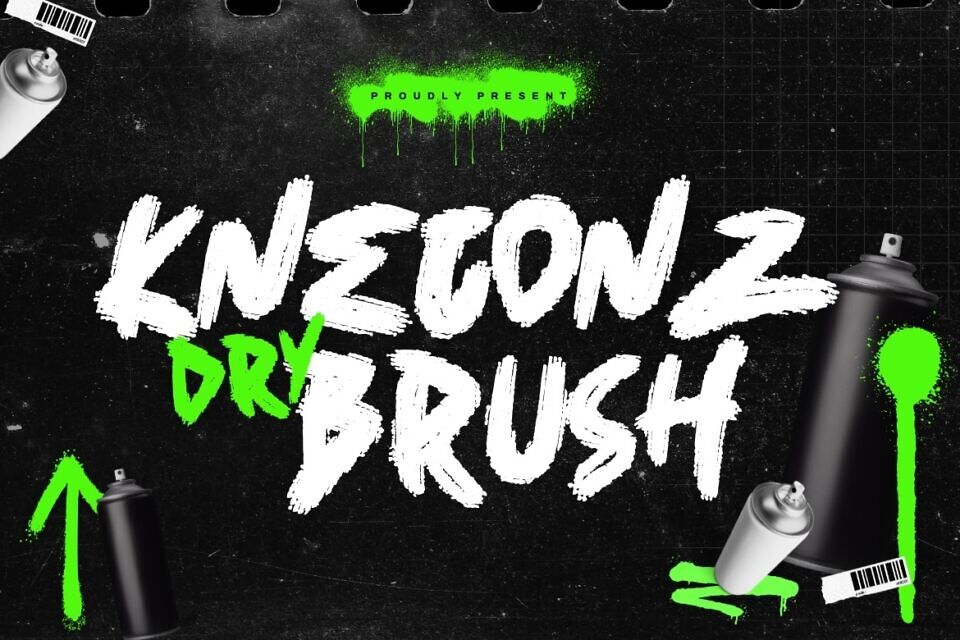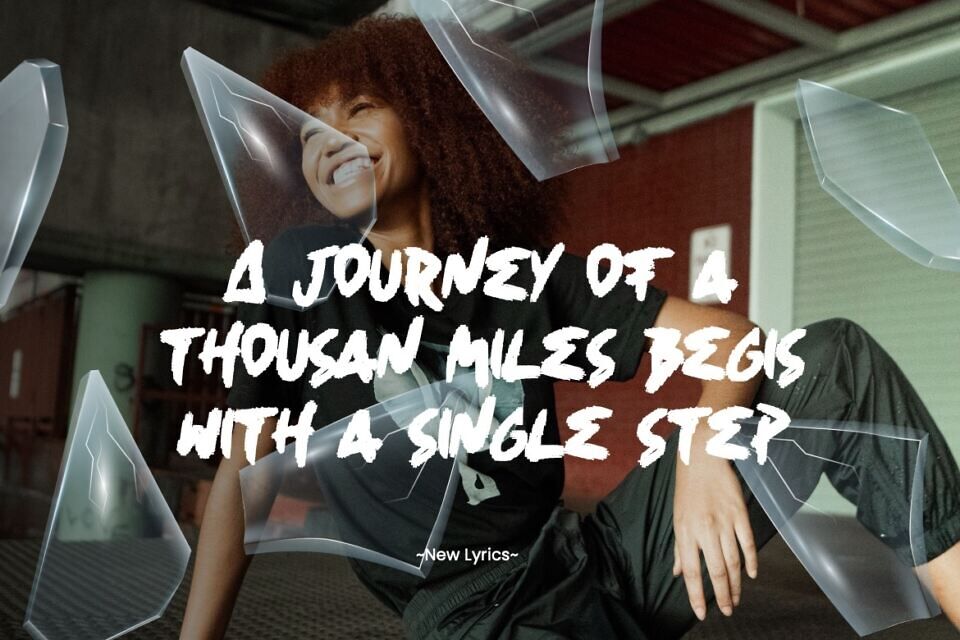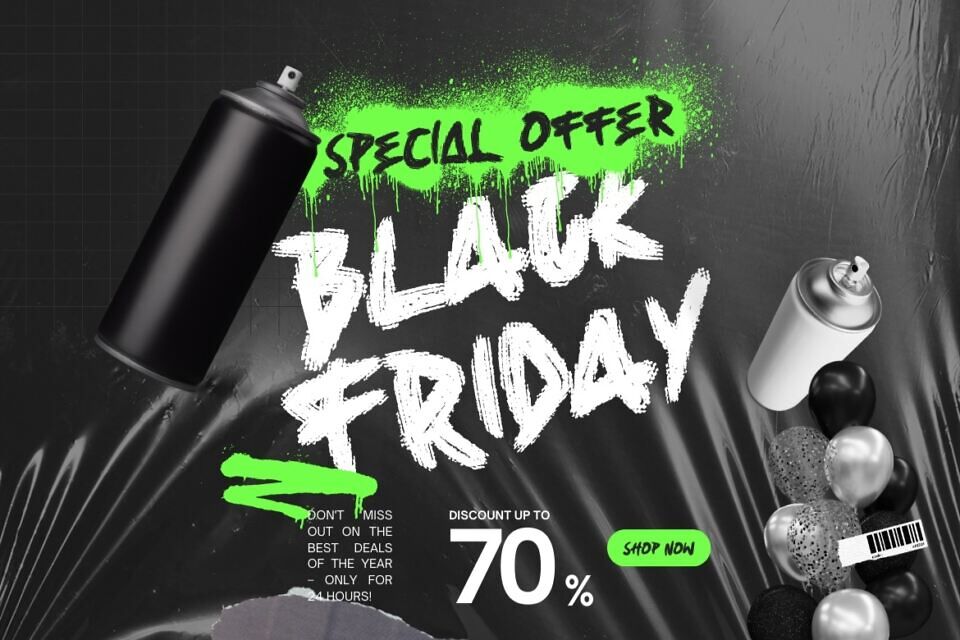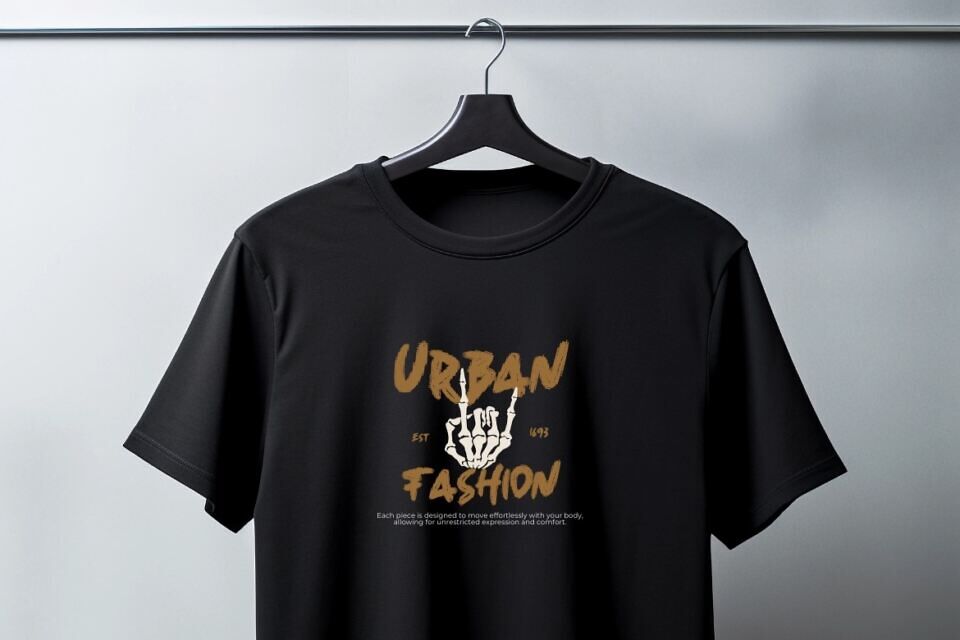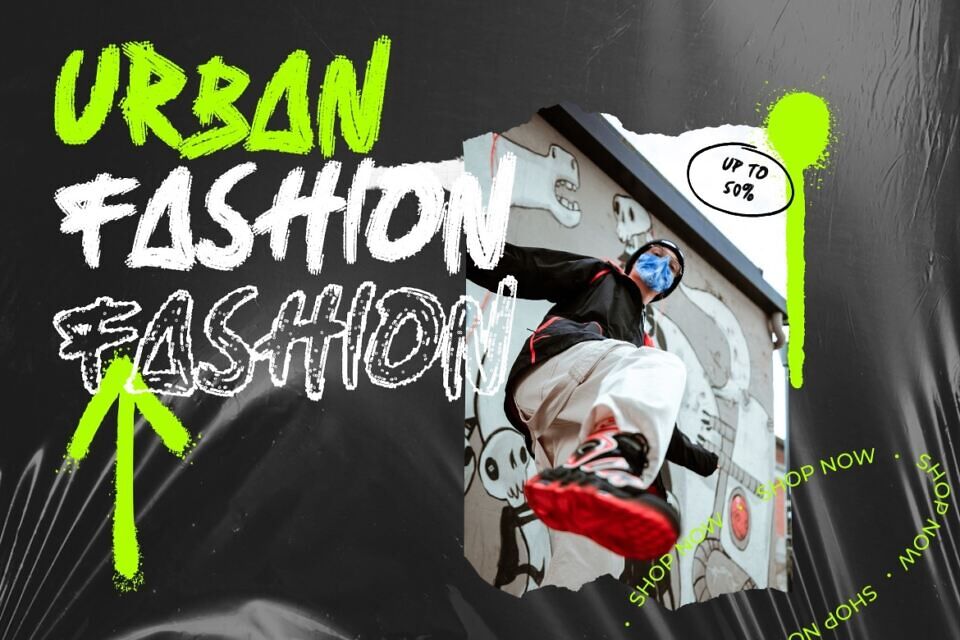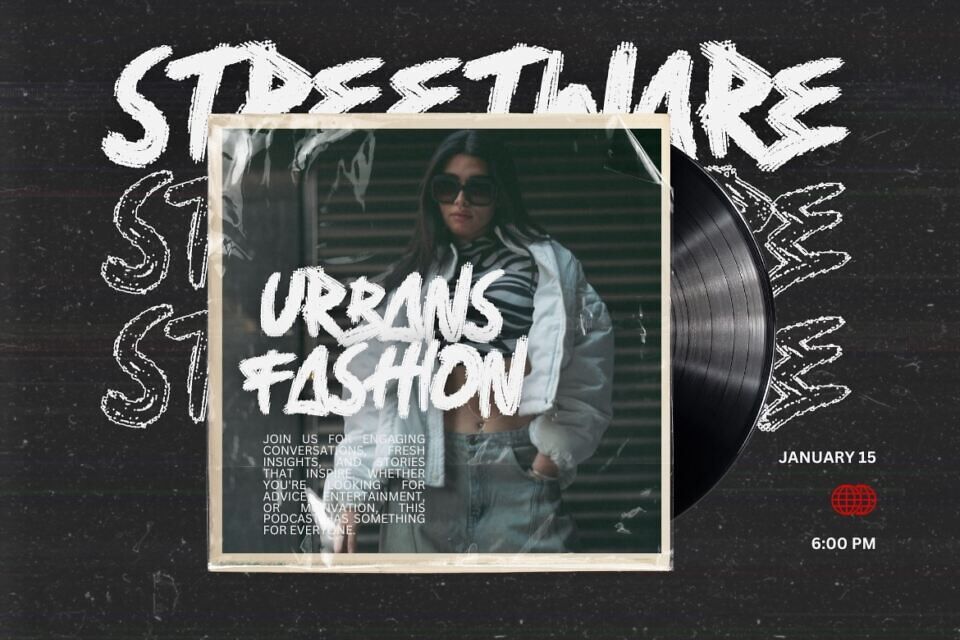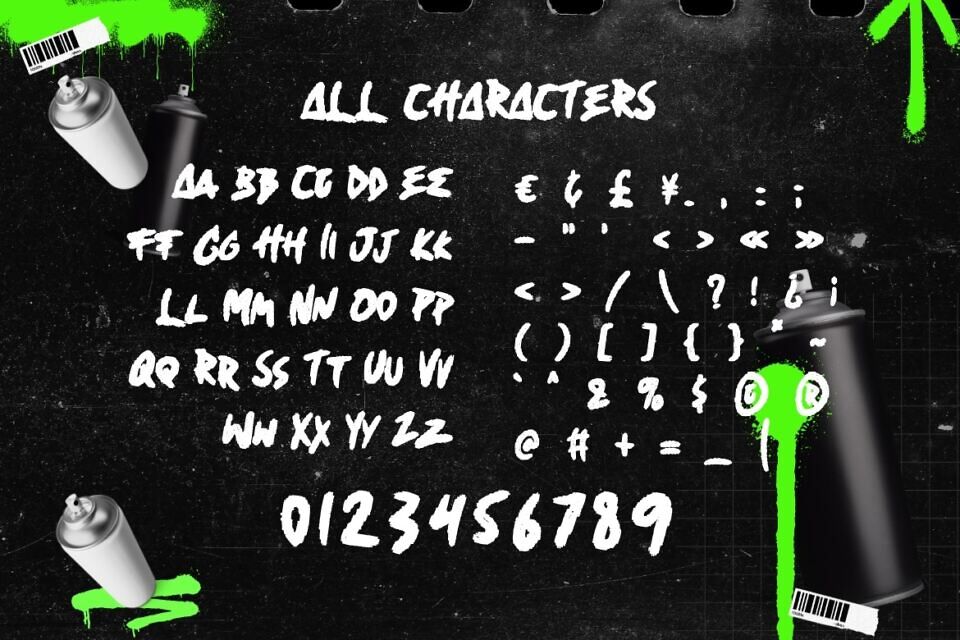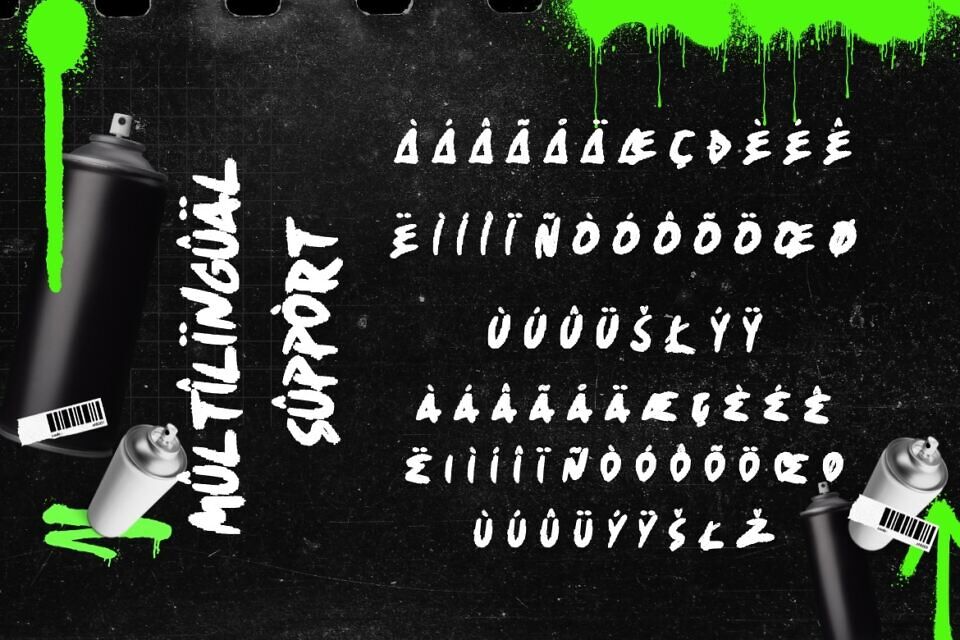
Kneconz is a Dry Brush Font, which has a hand lettering brush style. So it looks natural like a handmade. This texture is very detailed.
This font is suitable for logos, product branding, printable templates or for text overlay to any background image, also suitable for use in title design. Such as apparel, invitations, books tittle, stationery design, quotes, branding, greeting card, t-shirt, packaging design, poster and more.